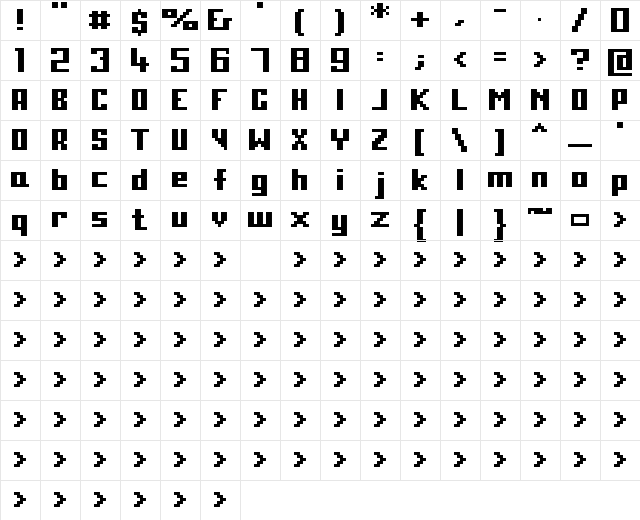
00Cryonix Bold
Design Context for 00Cryonix Typeface
00Cryonix is a composed and adaptable typeface that performs quietly and consistently across a wide range of design contexts. The heavy weight commands attention and anchors typographic hierarchies.